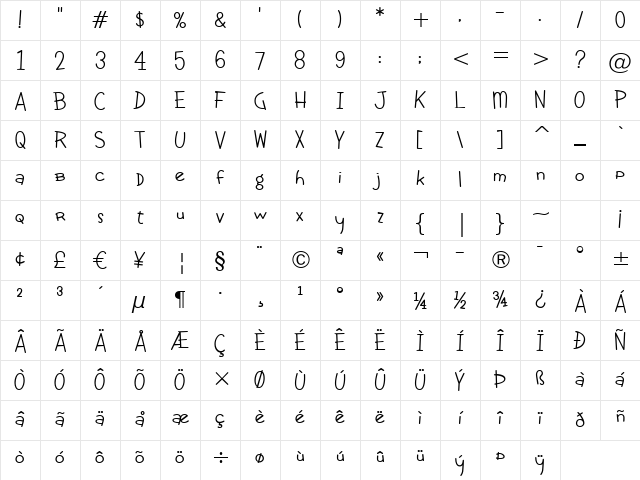
Crazy Girlz Brunette BTN Regular
Design Context for Crazy Girlz Brunette BTN
Crazy Girlz Brunette BTN is a composed and adaptable typeface that performs quietly and consistently across a wide range of design contexts.
Pro Tip: Use Crazy Girlz Brunette BTN in both headline and body roles to test its range before committing to a single application.